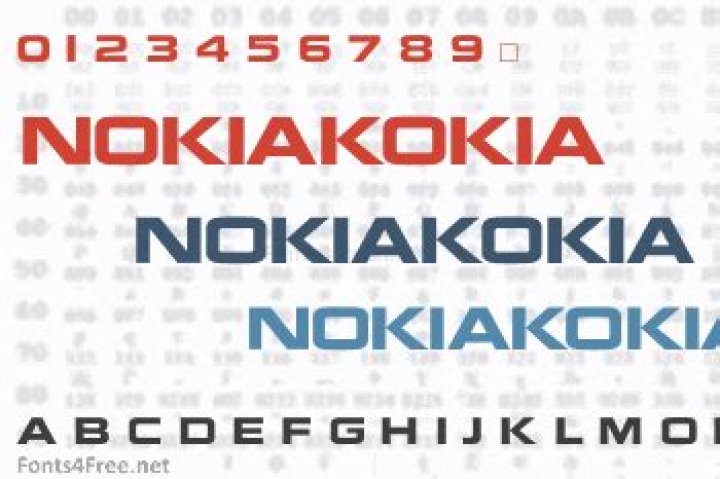
People also ask, what font does a phone use?
Roboto is the default font on Android and other Google services.
Secondly, what font is mostly used in print? Helvetica
Likewise, people ask, what is the font that everyone uses?
Helvetica
Helvetica remains the world's most popular font. It's best known for signage and when designing business forms, like invoices or receipts. It's effortless to read because its large x-height makes it look larger than it is. That makes it a great choice when customers need to use very fine print.
What's the name of iPhone font?
Helvetica Ultra Light
What fonts are universal?
The fonts that are most safe to use are: Arial / Helvetica. Times New Roman / Times. Courier New / Courier.Fonts that work on Windows and MacOS but not Unix+X are:
- Verdana.
- Georgia.
- Comic Sans MS.
- Trebuchet MS.
- Arial Black.
- Impact.
What are the 7 universal fonts?
Common fonts for Windows & Mac- Arial, Helvetica, Sans-Serif.
- Arial Black, Gadget, Sans-Serif.
- Comic Sans MS, Textile, Cursive.
- Courier New, Courier, Monospace.
- Georgia, Times New Roman, Times, Serif.
- Impact, Charcoal, Sans-Serif.
- Lucida Console, Monaco, Monospace.
- Lucida Sans Unicode, Lucida Grande, Sans-Serif.
What font does Facebook use?
Helvetica NeueWhat does Font mean?
A font is a collection of characters with a similar design. These characters include lowercase and uppercase letters, numbers, punctuation marks, and symbols. Changing the font can alter the look and feel of a block of text.What is normal size font?
The default setting for a new, blank Microsoft Word document (2007 or newer) is called the Normal Style. This means that when you open a new document, a default font style (Calibri), line spacing (1.15 spaces with an additional 10 points after each line), and font size (11 points) are already in place.What font does Instagramuse?
Proxima NovaWhat's the best font size for mobile?
16 pixelsWhat are the most hated fonts?
My top 10 most loathed fonts as a graphic designer!- Hobo.
- Scriptina.
- Times New Roman.
- Arial.
- Bradley Hand.
- Copperplate Gothic. If I see another law firm/accounting agency/corporate business use this font in their branding, it'll be too soon!
- Trajan. “In a world…”
- Courier. This is just one of the ugliest fonts every created!
What is the most attractive font?
Beautiful Internet: 10 of the Best Fonts for the Web- Tisa. Tisa is probably the best substitute for the default Helvetica or Arial on the web.
- Oswald & Abel. If you are looking for a condensed sans serif font that looks like League Gothic, Oswald is the strongest contender.
- Alternate Gothic.
- Open Sans.
- Alegreya.
- Titillium Sans and Dosis.
- Merriweather.
- Yellowtail.
What are the 4 major font types?
Most typefaces can be classified into one of four basic groups: those with serifs, those without serifs, scripts and decorative styles.What is a good font?
1. Calibri. Having replaced Times New Roman as the default Microsoft Word font, Calibri is an excellent option for a safe, universally readable sans-serif font.What is the cleanest looking font?
10 Best FREE Professional Fonts for Clean & Modern Logo Design- Bebas Neue.
- Exo 2.
- Raleway.
- Roboto.
- Open Sans.
- Titillium Web.
- Ubuntu.
- Lato.
What is the most popular font for books?
Serif fonts help with readability, and are therefore preferable in the body of a book. The “serif” is the decorative stroke that finishes each end of a letter (think Times Roman). Serif fonts are easier on the reader's eye than sans-serif fonts; the stroke leads the reader's eye from one letter to the next.How do I choose the right font?
4 Ways To Choose The Right Typeface- Use Safe Typefaces. Every designer has some amazingly outlandish typefaces that they use for special occasions.
- Know 5 Families Of Type.
- When Selecting Two Fonts, Use Decisive Contrast.
- Use “Wild” Typefaces Sparingly.
- Bonus Rule for Choosing Fonts: 'There Are No Rules'
How can I change font in Nokia 1?
How to Change Font Size Displayed on NOKIA 1 Plus?- Let's start by opening Settings.
- There, go to the Display section.
- Move down and find Font Size, tap on it.
- Good work, there you're able to change font size displayed on your screen! Just bring little blue dot to right or left edge of your screen to make font smaller or bigger.
- Perfect!
How do I change the font style on my phone?
Changing Built-In Font Settings- In the “Settings” menu, scroll down and tap the “Display” option.
- The “Display” menu may vary depending on your Android device.
- In the “Font Size and Style” menu, tap the “Font Style” button.
How do I change the writing style on my Nokia 6?
To change your default font, go to Settings – Device – Display – Font. You can also change the font size here also. Another option is to install the popular Go Launcher EX App.How do I get capital letters on my Nokia phone?
Good choice is Helvetica Roman, Helvetica Oblique, Helvetica Bold, Helvetica Bold Oblique. If properly installed on your computer, then you can see Helvetica as a choice in your Word menu and in other applications your using that also give you a choice of font.What is the prettiest font in Microsoft Word?
The best Microsoft Word cursive font is something that is going to vary based on personal preference, so it's hard to consider any specific font as the “best” one.Some examples are:
- Segoe Script.
- Lucida Handwriting.
- Edwardian Script.
- Kunstler Script.